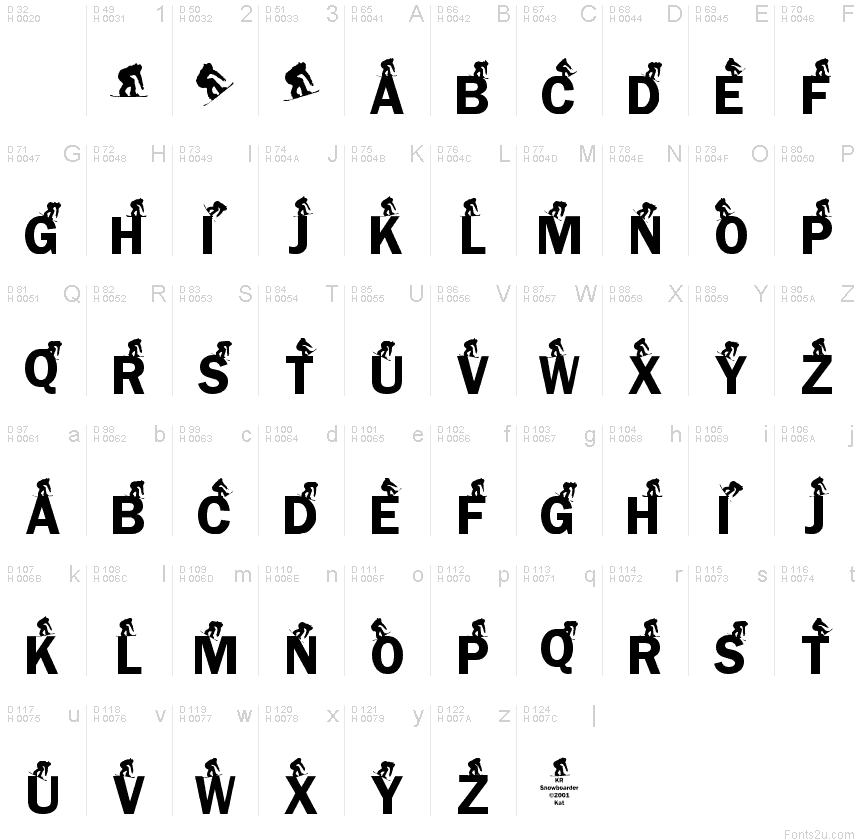
KR Snowboarder
KR Snowboarder by Katsfunfonts is a free snowboarding display font that pairs solid block lettering with small rider silhouettes balanced across the tops of the letters. That repeated snowboard motif turns the whole design into an action scene, with each character acting like a landing, rail, or drop rather than just a neutral backdrop.
It makes the most sense in short, punchy settings such as snowboard event posters, winter sale headers, resort flyers, sticker graphics, and shop signage. Because the riders are part of the font's core idea, it can also anchor club merch or seasonal web banners where the lettering needs to carry a clear mountain-sport identity.